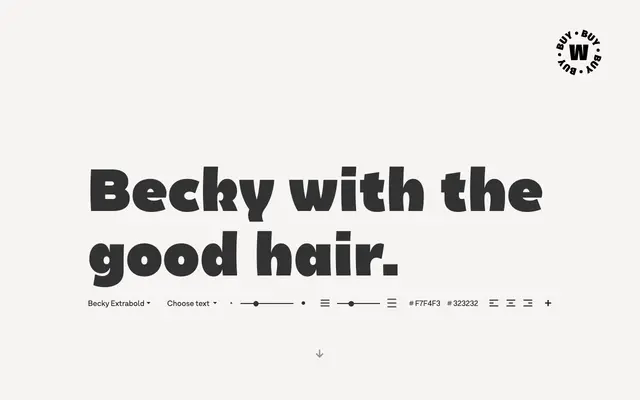
Becky
A geometric display family of 10 styles by Bana Arasanz, aimed at advertising, branding and retail work targeting a young creative audience.
Inspired by Futura and similar geometric classics, Becky introduces an informal, slightly edgy quality through subtly curved verticals. Five weights run from Light to Extrabold, each with a matching italic, giving 10 styles in total across 445 characters. Two stylistic sets extend its range: SS1 straightens curved diagonals for a more formal appearance at smaller sizes, while SS2 offers alternate glyphs for a handful of characters.
Becky is explicitly described as a display type inspired by geometric classics such as Futura, with informal and edgy details. Its primary use cases are headlines, branding and advertising, placing it firmly in the display category with a geometric sans influence.